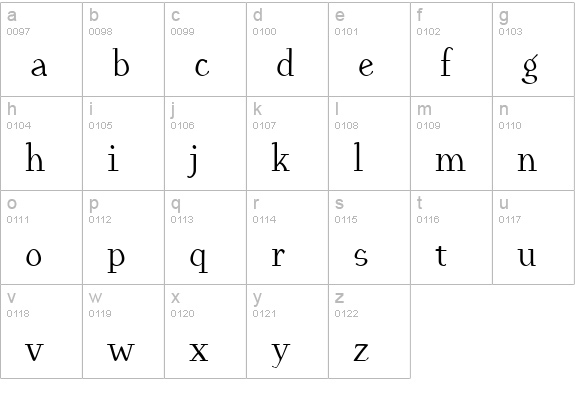
EuroikaKamp is a stunning and versatile font that exudes elegance and sophistication. Its unique blend of modern and classic elements makes it perfect for a wide range of design projects, from branding to editorial work. The clean lines and stylish curves of EuroikaKamp will add a touch of refinement to any design. What sets EuroikaKamp apart is not just its beauty, but also its accessibility. This font is available for free download at FontsMarket.com, making it easy for designers of all levels to incorporate it into their work. Whether you're a seasoned professional or just starting out, EuroikaKamp is a valuable addition to your font library. With its timeless appeal and effortless charm, EuroikaKamp is sure to become a go-to choice for designers seeking a font that is both elegant and versatile. Download it for free today and elevate your designs with this exceptional typeface.